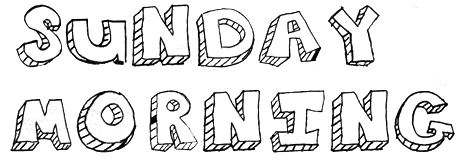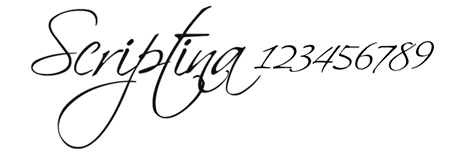
Free For All: 103 Free Fonts!
In this installment of “Free for All,” I’ll cover just one type of freebie: everyone’s favorite, free fonts! You’ll find script fonts, modern fonts, funky fonts, and more. All told, there are more than 100 free fonts in this one article—enough to keep even the biggest type geek giddily building type spec sheets for weeks!
Grunge Fonts
Popularly referred to as “grunge fonts,” the group of typefaces officially classified as “distressed” first become popular as a result of the title treatment on the 1990s television show the X-Files (download it below!), and the craving for them has only increased since. The following free grunge fonts ought to quench your thirst—at least for a little while.
Handwritten and Hand-drawn Fonts
Get up close and personal with fonts based on others’ real life handwriting and on hand-drawn letterforms.
Funky Fonts
Although “funky fonts” isn’t a traditional typeface classification, it’s the best description for the following eclectic assortment of fonts.
High-Quality Fonts
This category is reserved for those fonts that benefit from the type designers’ great attention to detail and additional features not found in the average free font. Some of them, for instance, contain kerning and hinting data nearly on par with commercial fonts, for which you’d expect to pay a hundred dollars or more. Many of these are complete typefaces given away free to entice you to purchase more tyepfaces in a larger family of fonts. If you like the free samples, we encourage you to pay for the rest of the family and support quality type design.